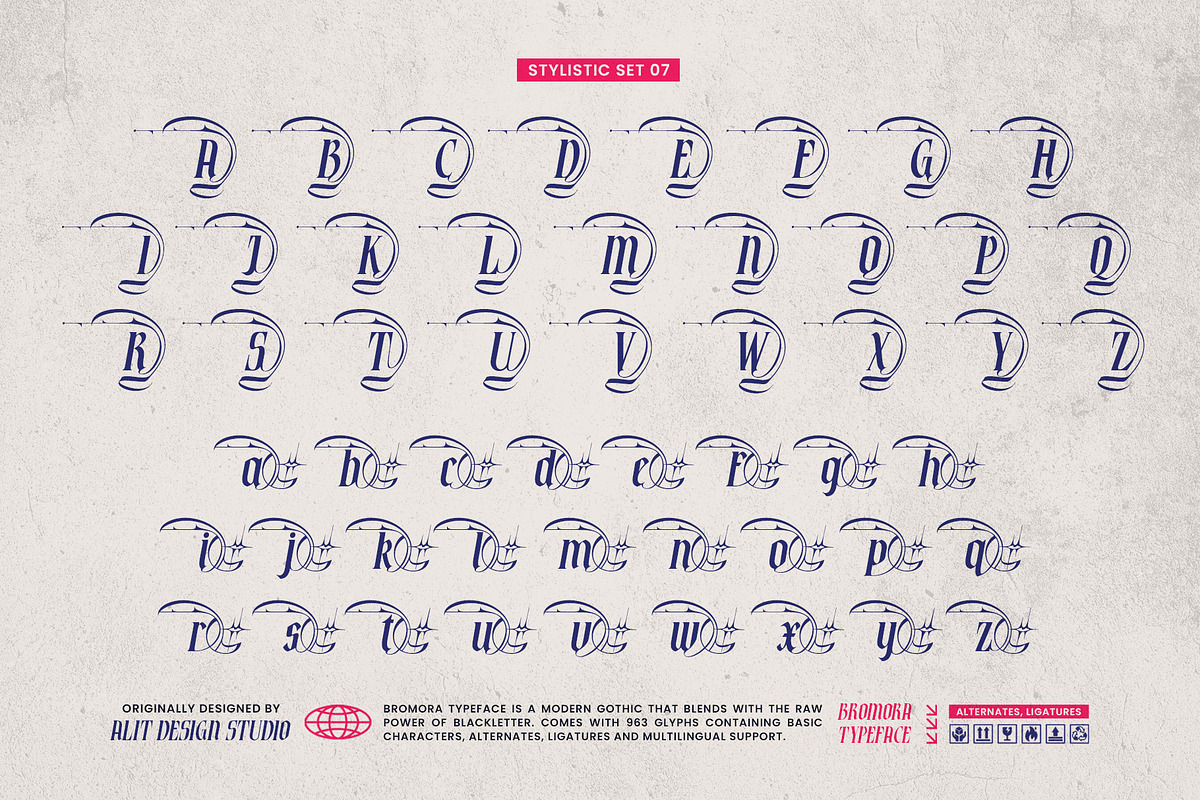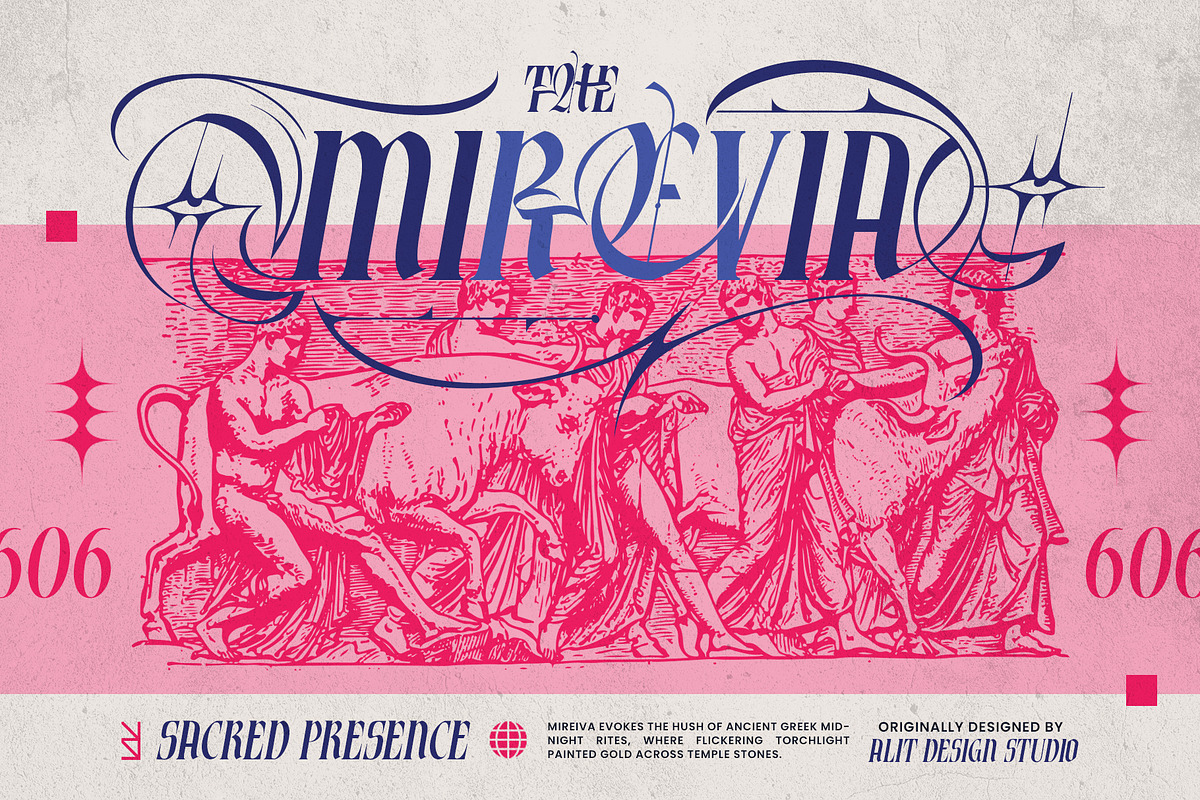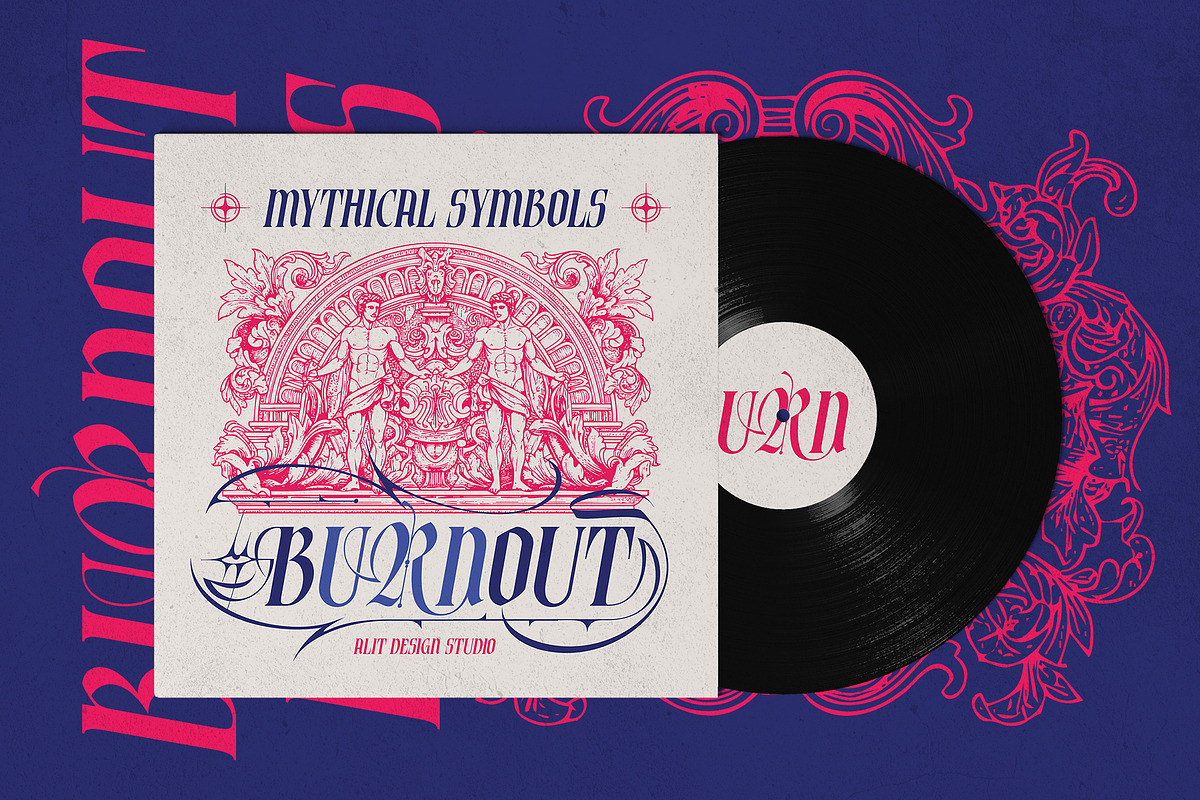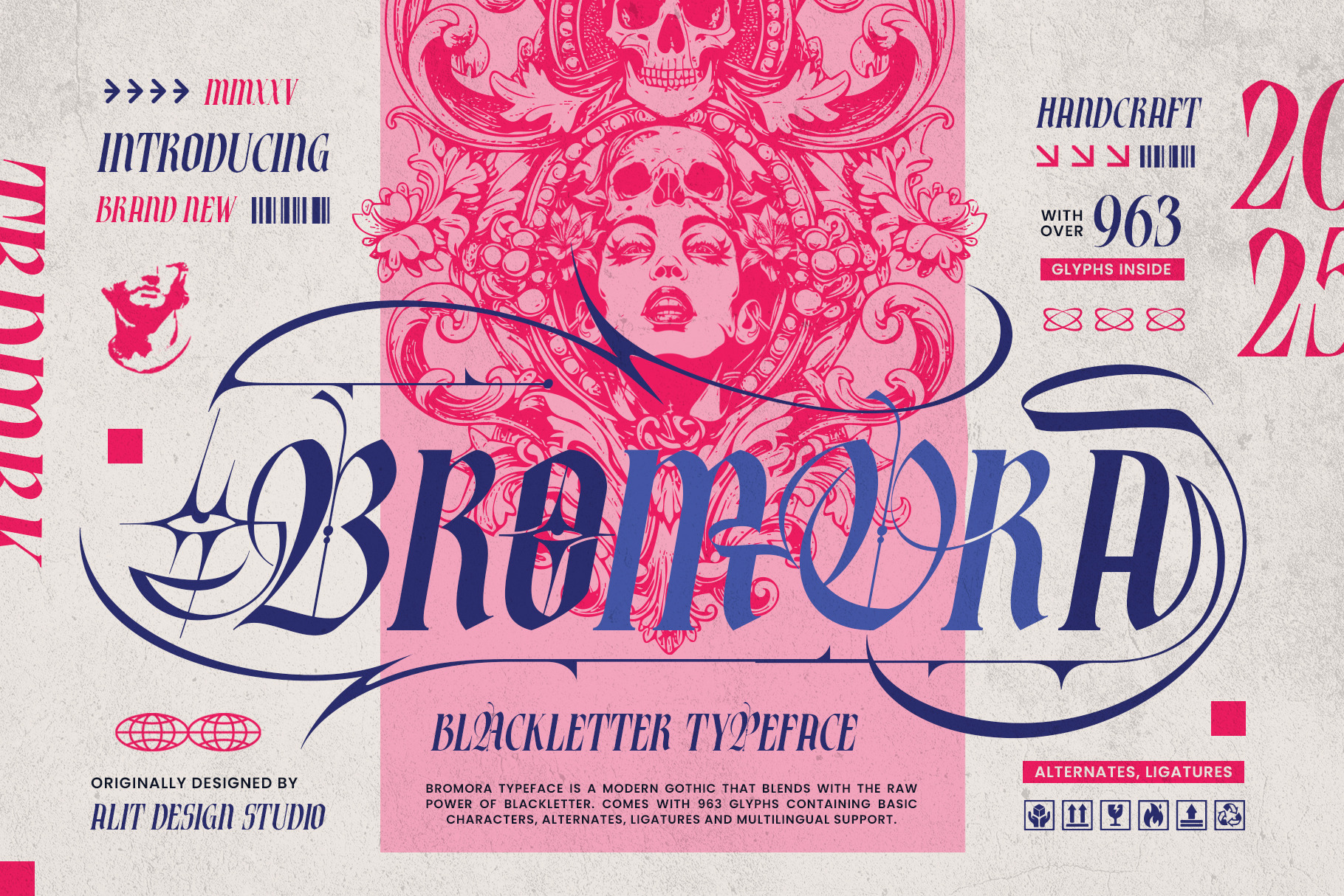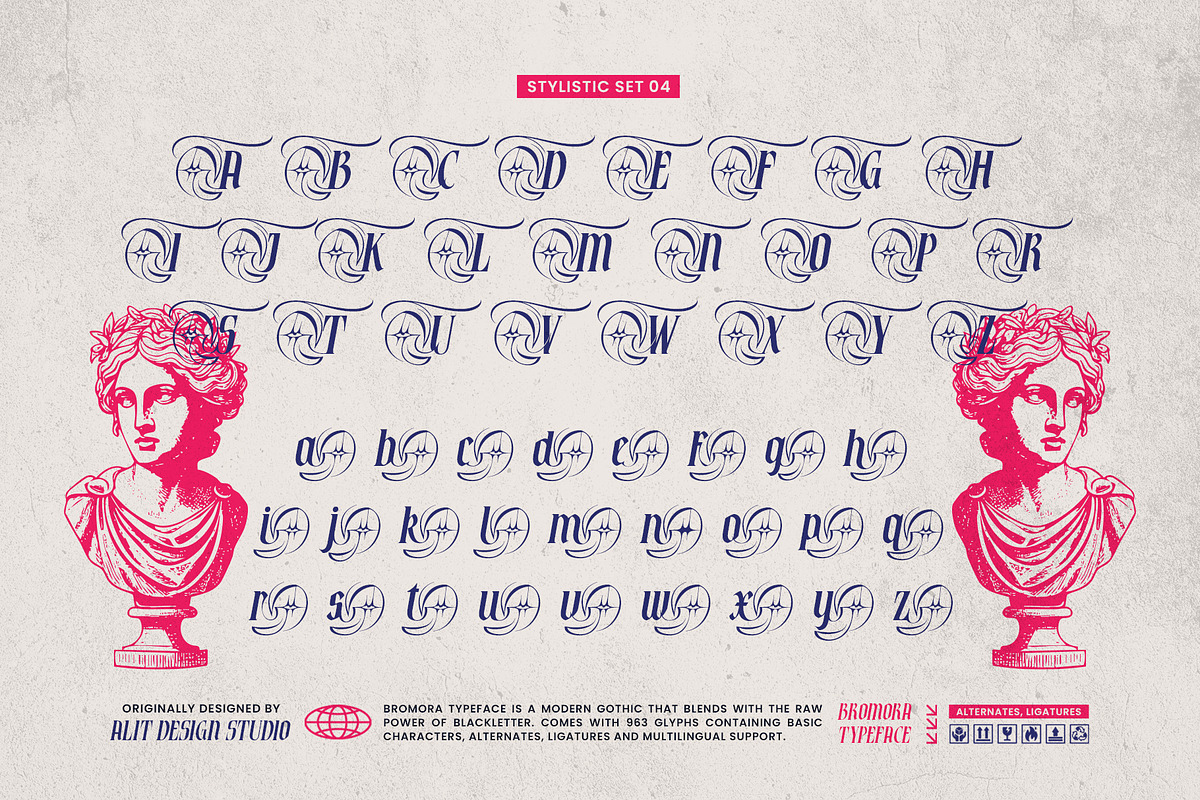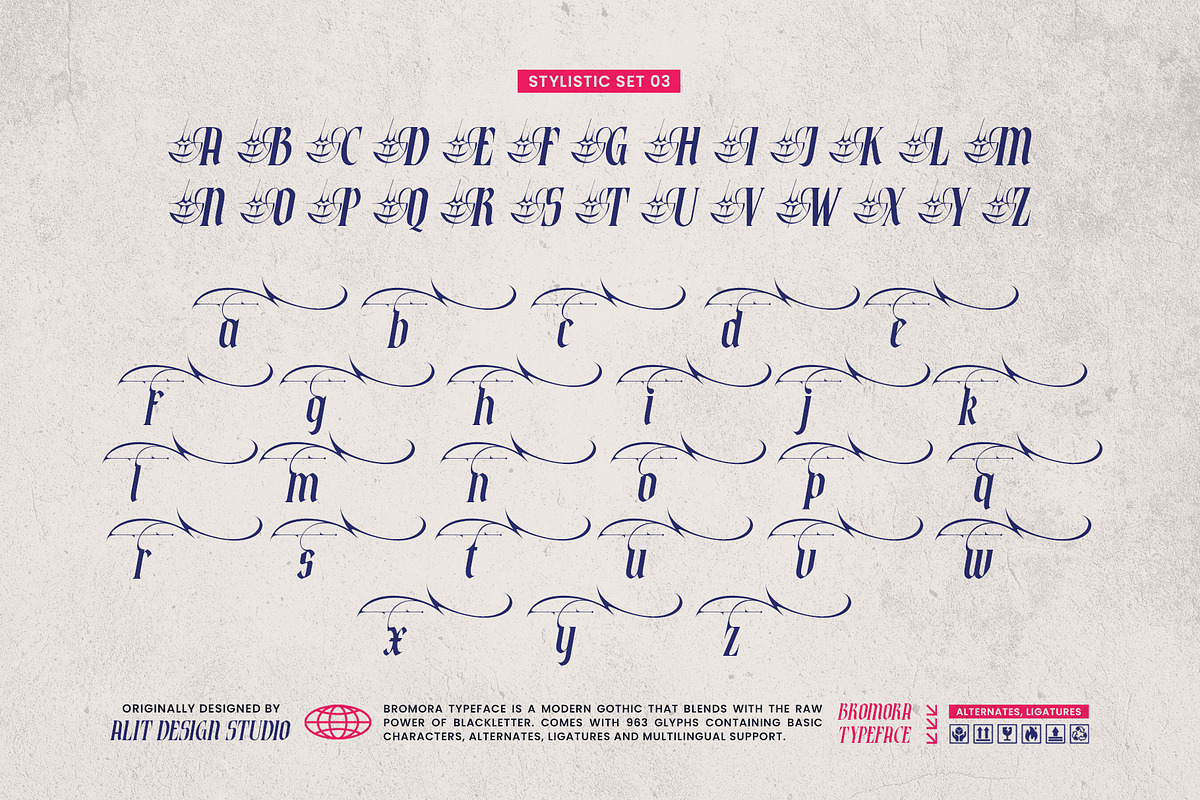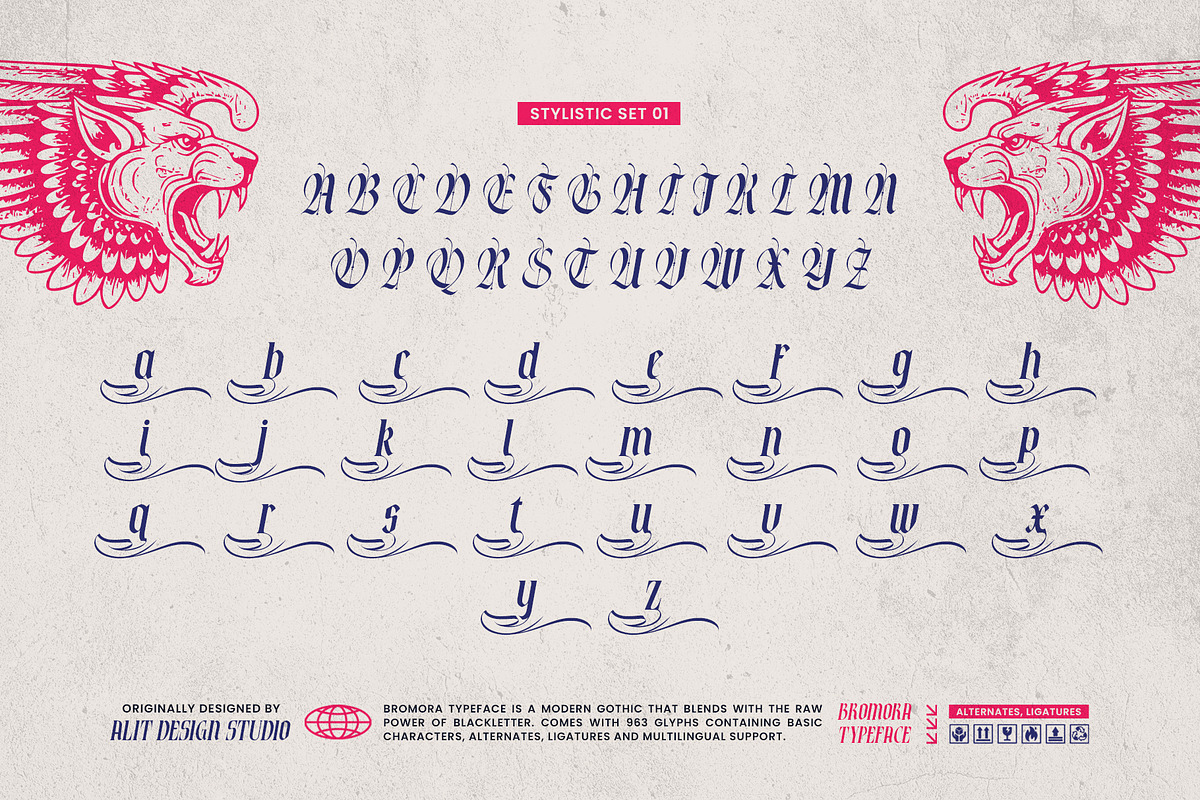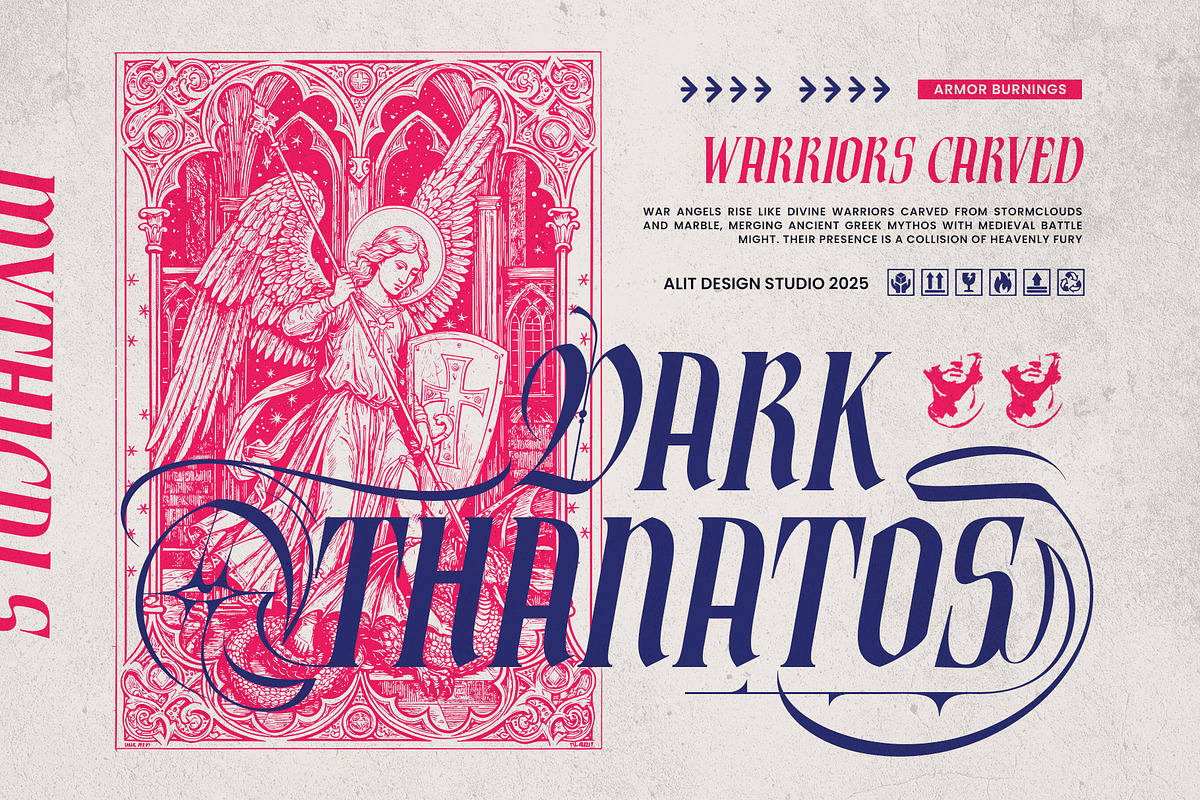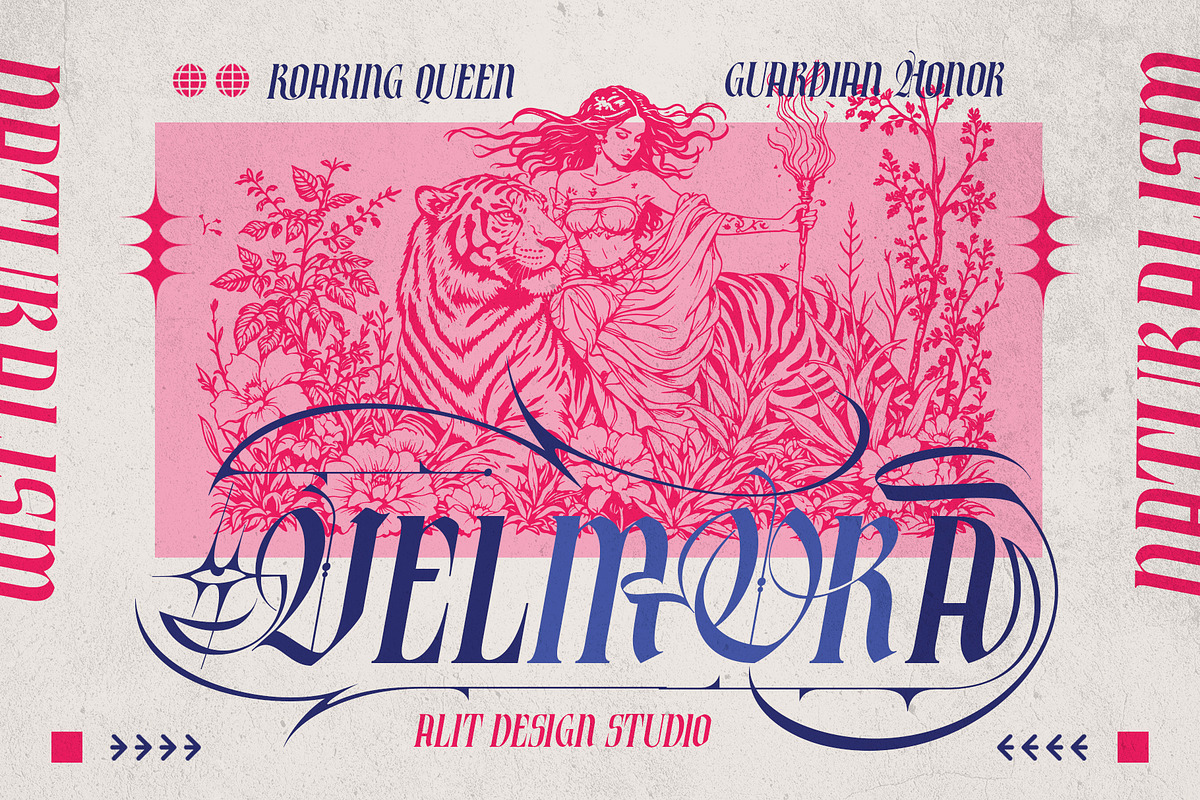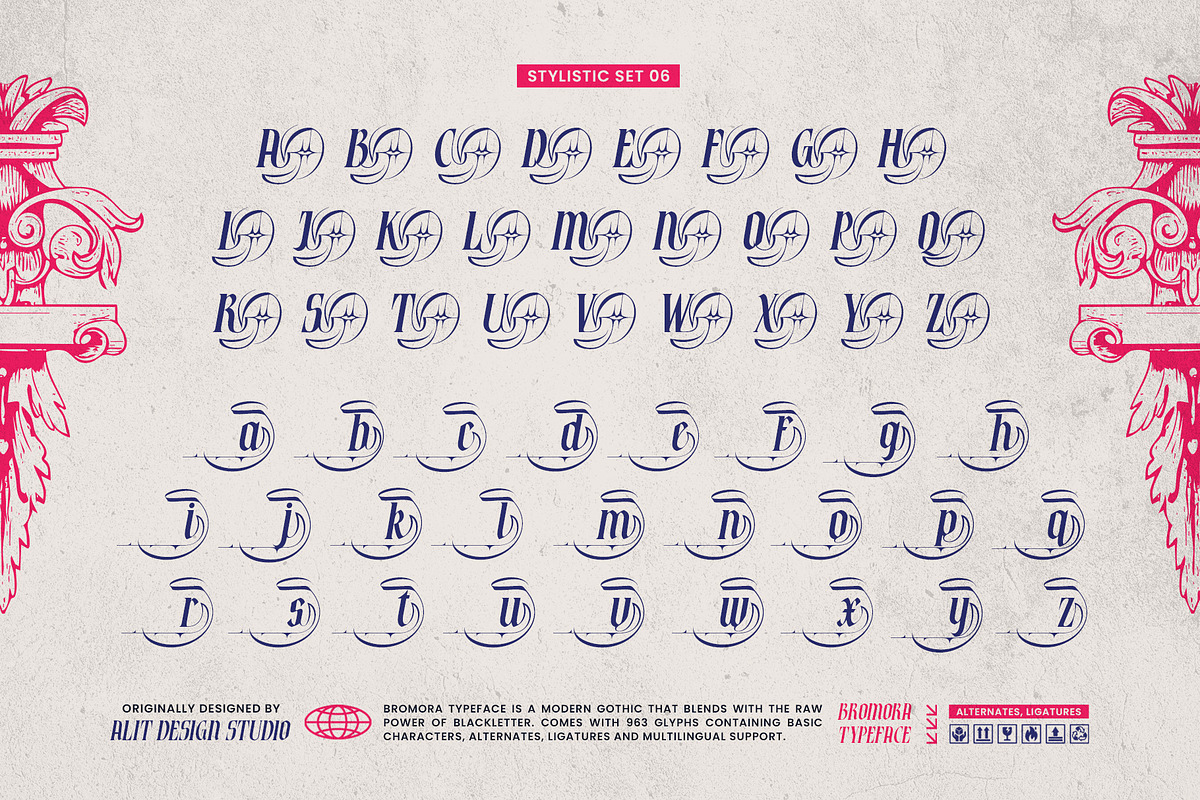
Bromora Typeface
🖋️ Bromora Typeface: Modern Gothic Blackletter
Unleash the raw power of ancient myth and modern street culture with Bromora Typeface, a stunning modern gothic blackletter font. Designed for high-impact branding, dark street fashion, elaborate titling, and sophisticated editorial design, Bromora is more than just a font—it's a statement.
- Modern Gothic Reimagined: Bromora seamlessly blends the powerful, intricate aesthetic of traditional blackletter with a contemporary, sleek, and slightly aggressive edge.
- Massive Glyph Count: Comes equipped with 963 glyphs, ensuring comprehensive support for multilingual design and maximum creative versatility.
- Opulent Alternates & Ligatures: Elevate your typography with a wealth of stylistic options, including:
- Swash & Flow: Elegant swashes and sweeping lines that add a dynamic, decorative flair, perfect for achieving the dramatic look seen in designs like "HERMES," "THANATOS," and "NEMESIS BLACK." (See Stylistic Sets 02 & 03 for examples).
- Contextual Alternates: Multiple styles for characters, allowing you to fine-tune the complexity and visual impact of every word.
- Thematic Versatility: Ideal for projects that draw inspiration from dark fantasy, Greek mythology (Thanatos, Hermes, Nemesis), medieval grandeur, and high-end streetwear.
- Professional Quality: Originally designed by ALIT DESIGN STUDIO, guaranteeing a typeface built with precision and a deep understanding of typographic art.
🎯 Perfect For:
- Streetwear & Apparel Branding: Create bold, unforgettable graphics for T-shirts and merchandise (as seen in the "UNYIELDING HERMES" example).
- High-End Packaging & Labeling: Add a touch of dark, premium sophistication to product lines.
- Poster & Event Design: Command attention with powerful headlines for music events, fashion shows, or artistic presentations.
- Logotype & Identity: Develop a distinctive, memorable brand identity that screams strength and heritage.
Bromora Typeface is the essential tool for designers looking to inject their work with a blend of historical depth, luxurious detail, and uncompromising dark style.